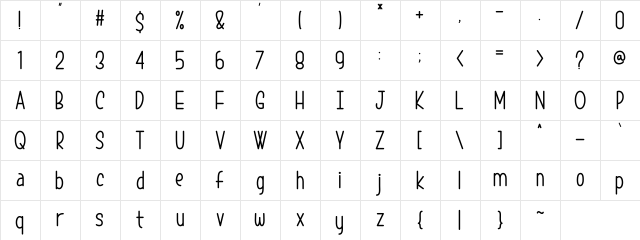
Afternoon Coffee Coffee
Design Context for Afternoon Coffee Typeface
Afternoon Coffee is a composed and adaptable typeface that performs quietly and consistently across a wide range of design contexts.